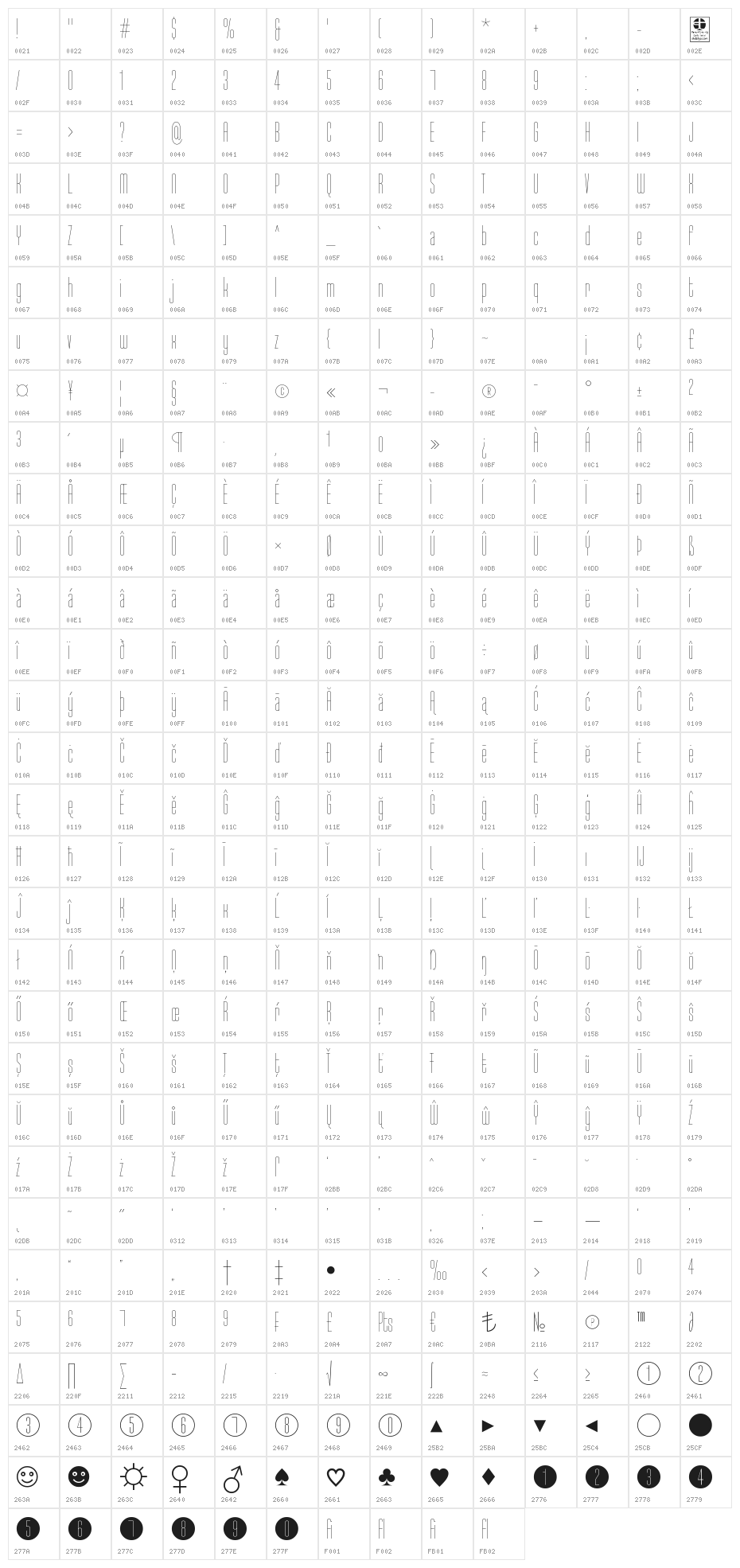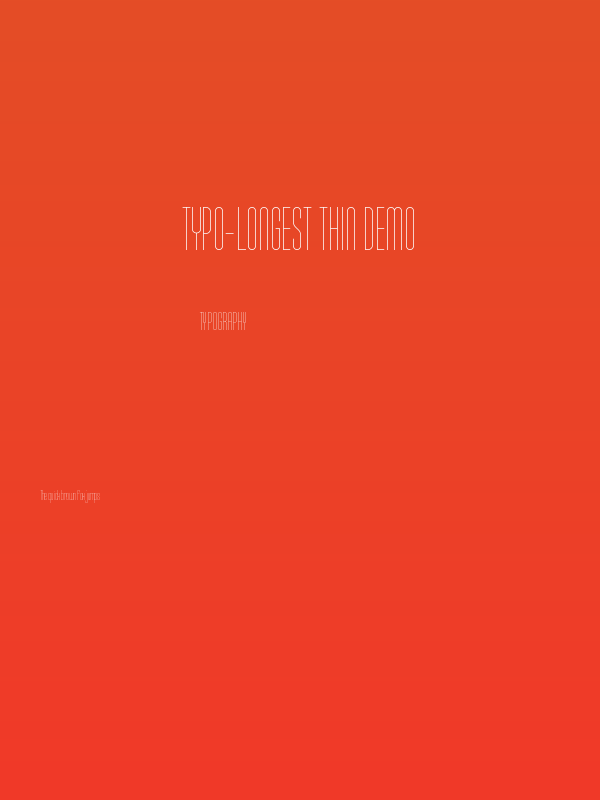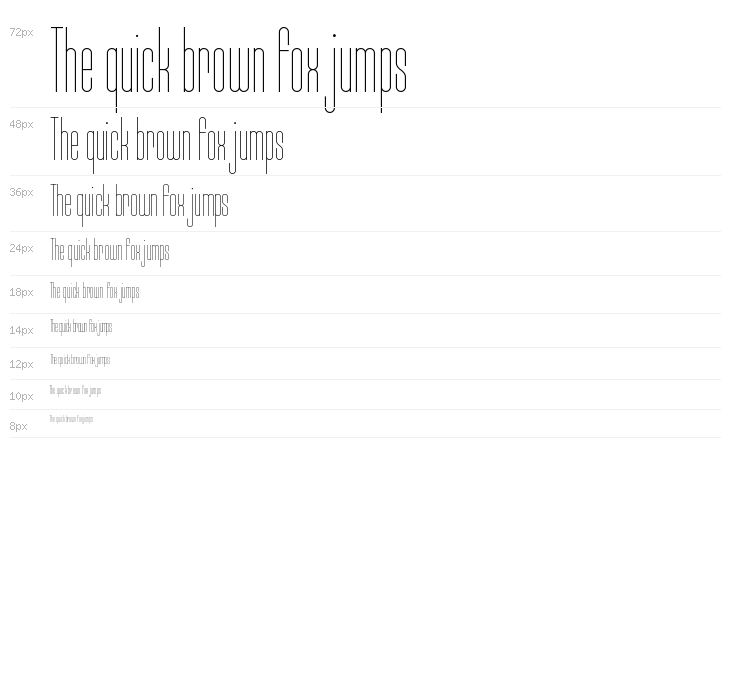
Typo-Longest Thin Demo Font
Typo-Longest Thin Demo Description
This font features an ultra-thin, elongated design with a modern and sleek aesthetic. The characters are tall and narrow, creating a sense of elegance and sophistication. The uppercase and lowercase letters maintain a consistent height, contributing to a uniform appearance. The numerals and special characters follow the same thin style, ensuring a cohesive look across all text elements. This font's minimalistic approach makes it ideal for contemporary design projects where a clean and refined look is desired.
| Proposed Projects | Ideal for fashion magazines, luxury branding, minimalist posters, and modern web design. |